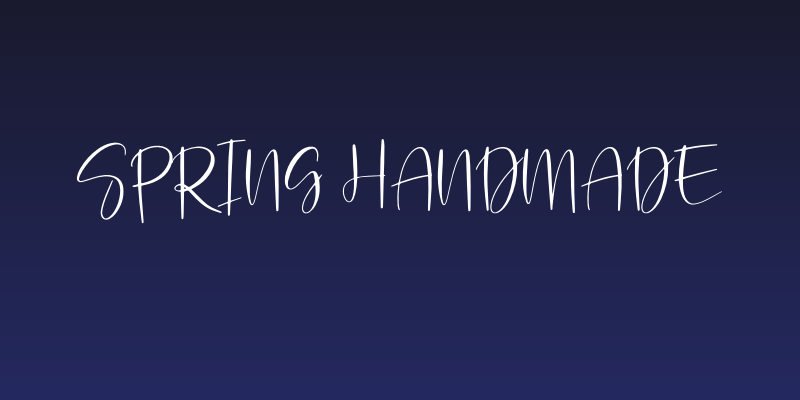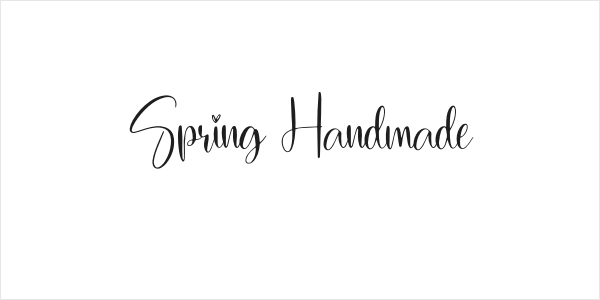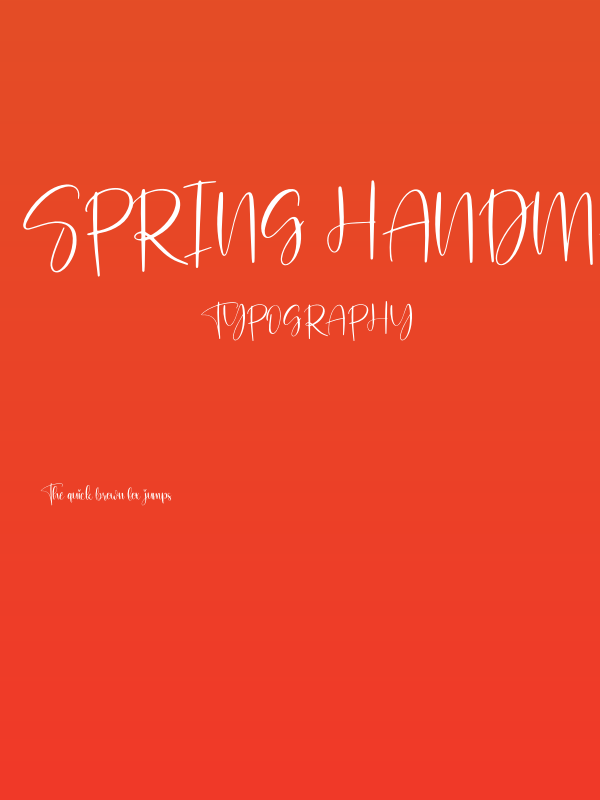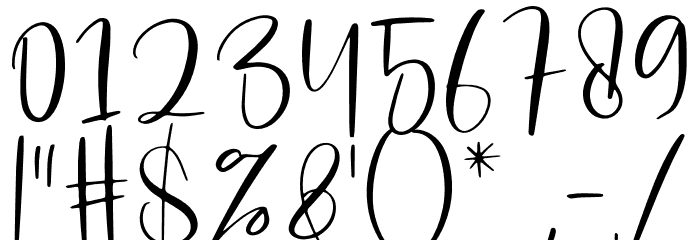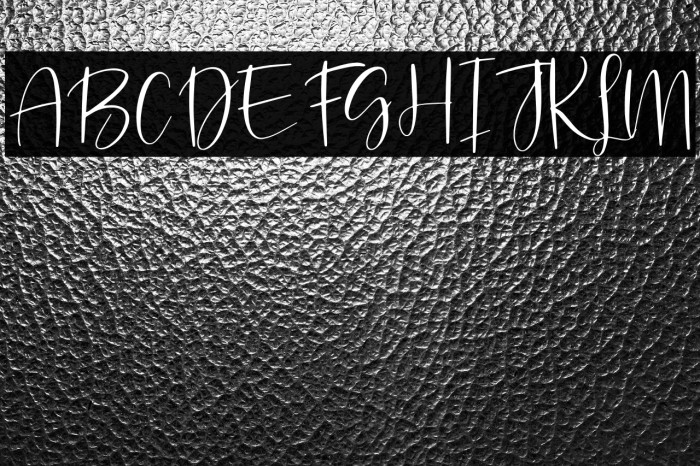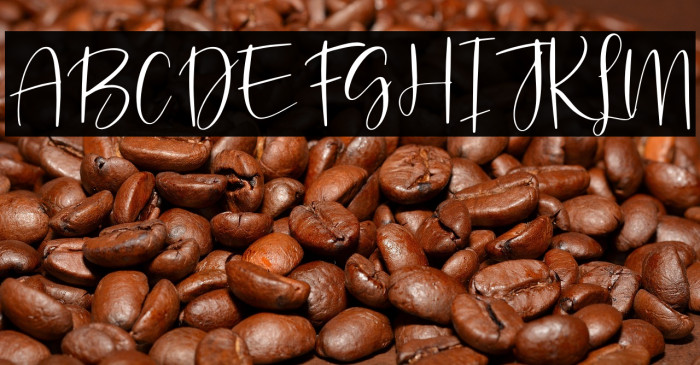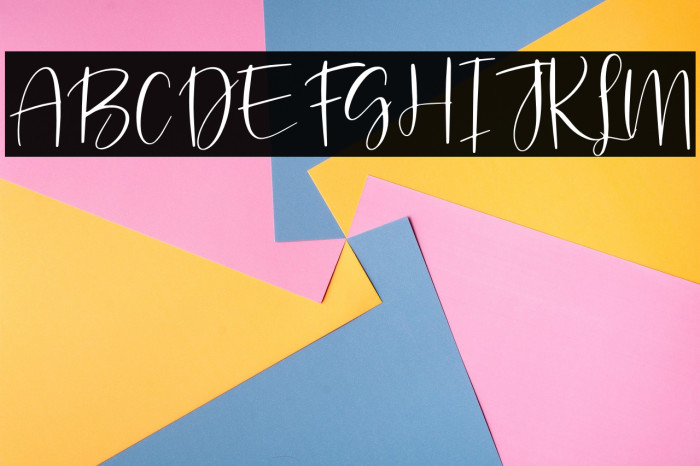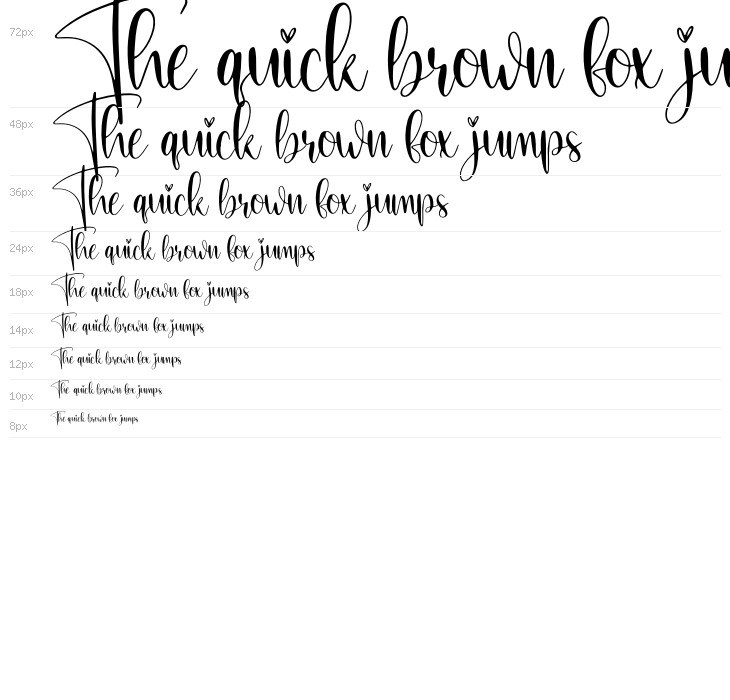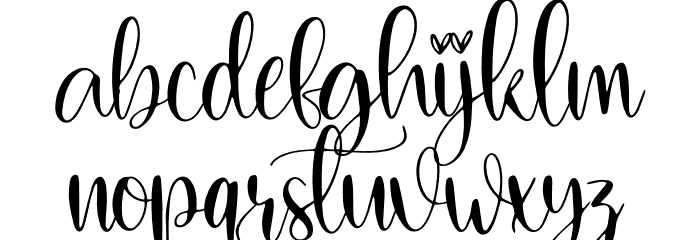
Spring Handmade Font
Spring Handmade Description
This font exudes a playful and artistic flair, characterized by its handwritten style that combines elegance with a touch of whimsy. The uppercase letters are tall and slender, with a slight slant that adds dynamism. The lowercase letters are more fluid and connected, showcasing a cursive influence that enhances the font's handmade aesthetic. Numbers and special characters maintain the same lively and expressive quality, making them stand out. The overall appearance is both sophisticated and approachable, ideal for creative projects that require a personal touch.
| Use Case | Logos, Invitations, Creative projects |
| Proposed Projects | Ideal for wedding invitations, greeting cards, branding projects, and creative social media graphics. |